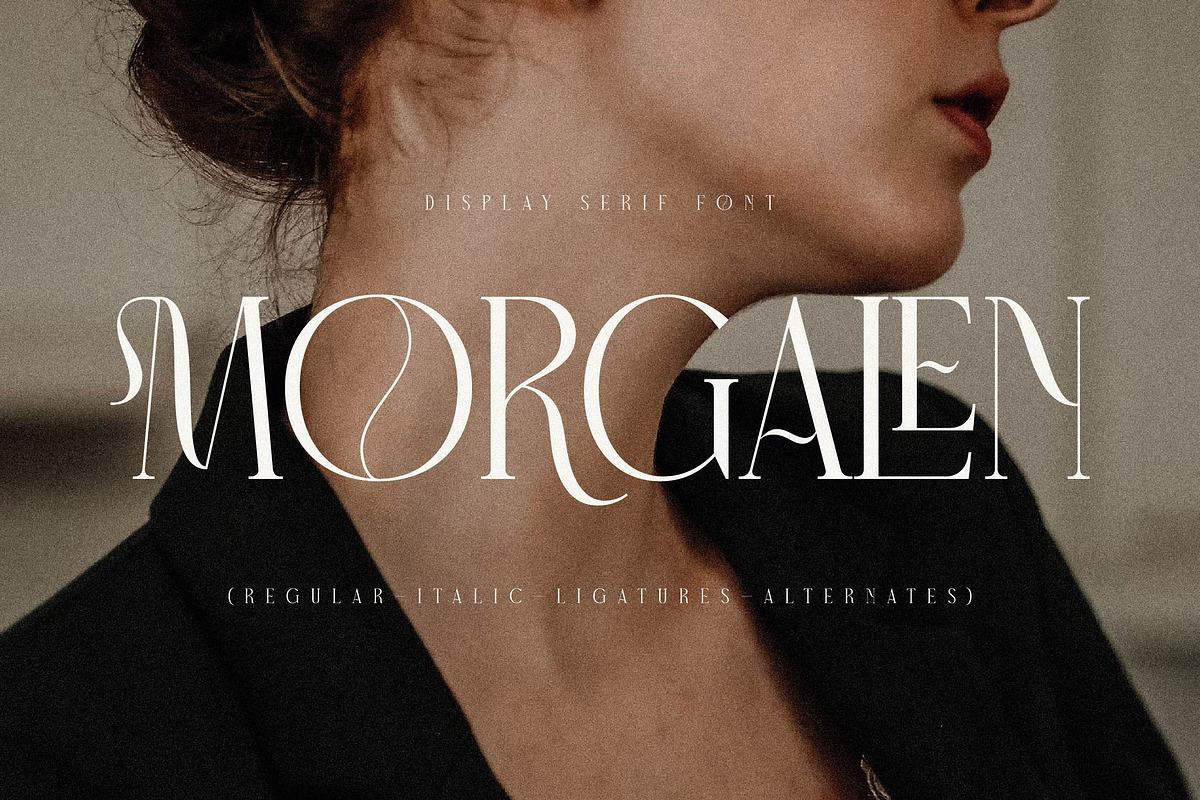
Morgalen Display Serif Font is perfect for luxury brand identities, sophisticated magazine headlines, premium editorial layouts, high-end fashion campaigns, elegant book covers, prestigious business materials, cultural institution communications, upscale restaurant branding, refined logo design, distinguished signage systems, exclusive event promotions, and sophisticated display typography applications.
Morgalen Display Serif Font is exciting because it represents the pinnacle of contemporary serif sophistication through its commanding display characteristics that merge classical elegance with modern editorial power, creating typography that demands attention while maintaining refined dignity and timeless appeal. This exceptional typeface features dramatic proportions with exquisite serif details that create powerful visual hierarchy and authoritative presence in any design context. The font's sophisticated character ensures every headline feels monumentally important and every brand message appears distinguished and credible.
Morgalen Display Serif Font includes comprehensive font families: Regular Editorial Style, Bold Commanding Weight, Light Elegant Touch, Medium Sophisticated Balance, Italic Graceful Slant, Condensed Impactful Width, Extended Prestigious Format, Ultra Bold Statement, Thin Refined Version, and Special Editorial Symbols, providing complete solutions for luxury display typography and sophisticated brand communications that demand editorial excellence and visual authority.
This distinguished typography solution transforms standard headlines into commanding editorial statements through its sophisticated display aesthetic and authoritative design presence. Morgalen Display Serif Font Free Download enables designers and luxury brands to access premium display serif typography that instantly adds authority, sophistication, and editorial gravitas to any creative project. The font's meticulously crafted proportions ensure maximum impact while maintaining elegant readability and distinctive sophisticated character.
Luxury publishers, high-end brands, and prestigious organizations trust Morgalen Display Serif Font for its ability to communicate authority, sophistication, and editorial excellence to discerning audiences who appreciate refined typography and premium brand experiences. The typeface's commanding construction performs beautifully across various applications, from intimate luxury communications to large-scale prestigious displays. Its extensive character support includes multilingual capabilities and sophisticated design elements that enhance distinguished brand presentations.
The design philosophy behind Morgalen Display Serif Font emphasizes the perfect balance between editorial authority and sophisticated elegance, creating typography that commands respect while maintaining the refined beauty that defines luxury communication. This sophistication-focused approach creates a font that feels genuinely authoritative while maintaining contemporary appeal across different luxury contexts and editorial brand expressions.
Whether creating luxury brand identities, prestigious editorial materials, or sophisticated marketing campaigns, this display serif delivers exceptional results that embody editorial authority and refined sophistication. Download Morgalen Display Serif Font today and discover how premium display serif typography can transform your design projects into commanding expressions of editorial excellence, sophisticated authority, and the distinguished presence that defines the most influential and respected brand communications.